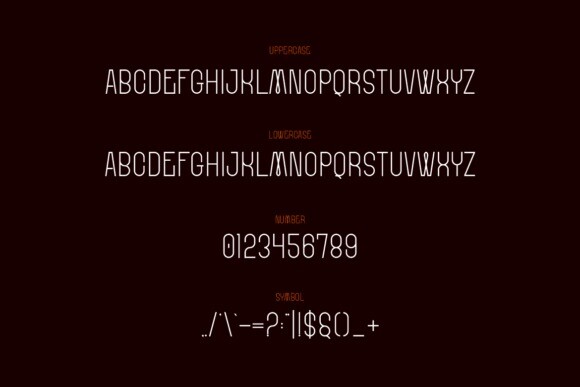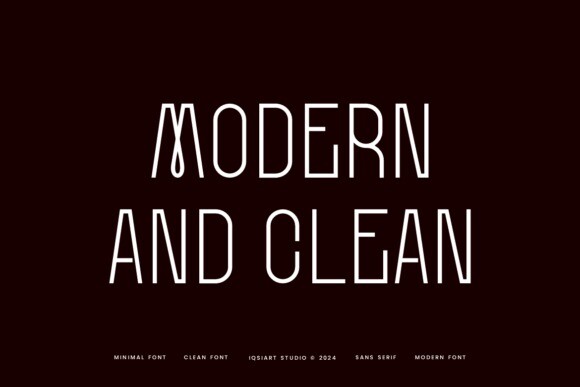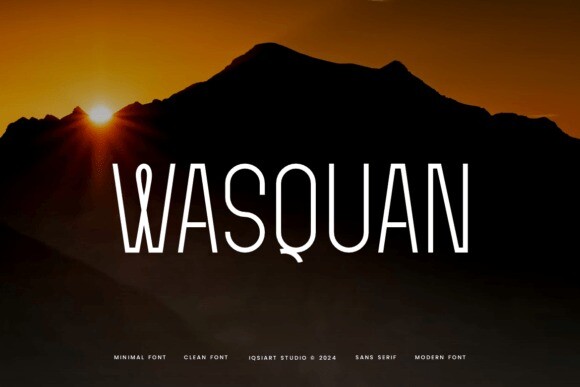
Wasquan Font
Wasquan Font is a clean and modern sans serif font with smooth, straight lines. Its simple design makes it easy to read and perfect for any project that needs a sleek, minimalist look.